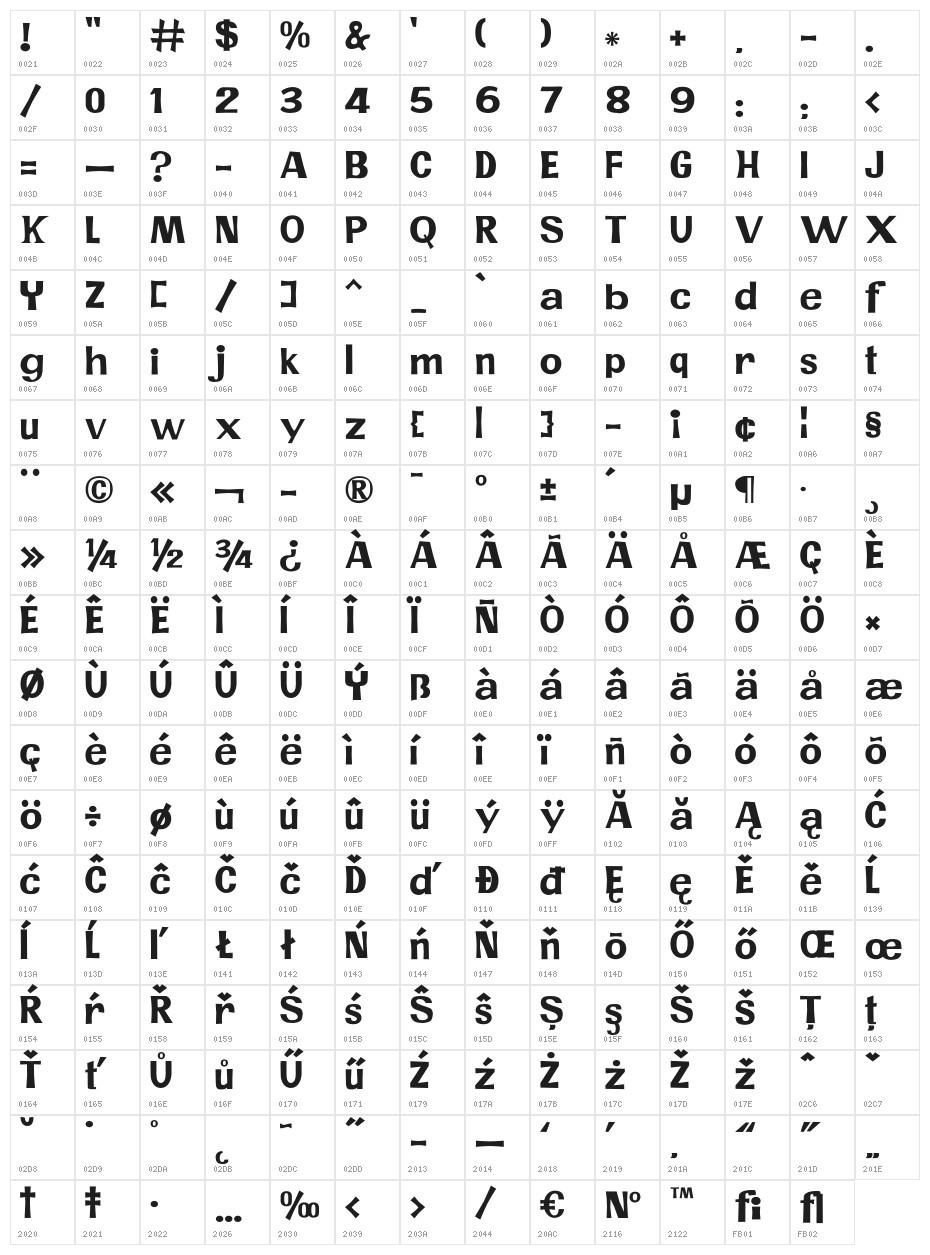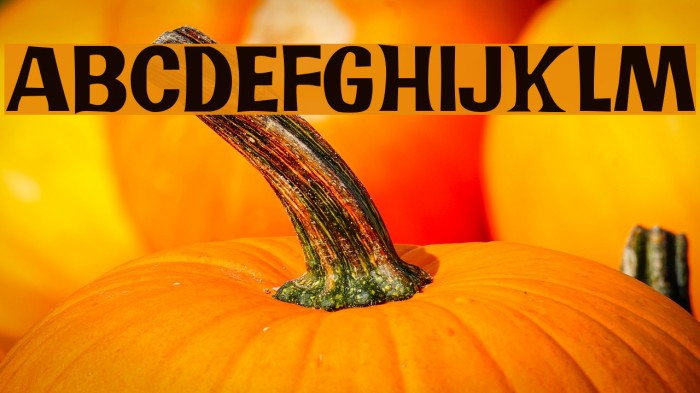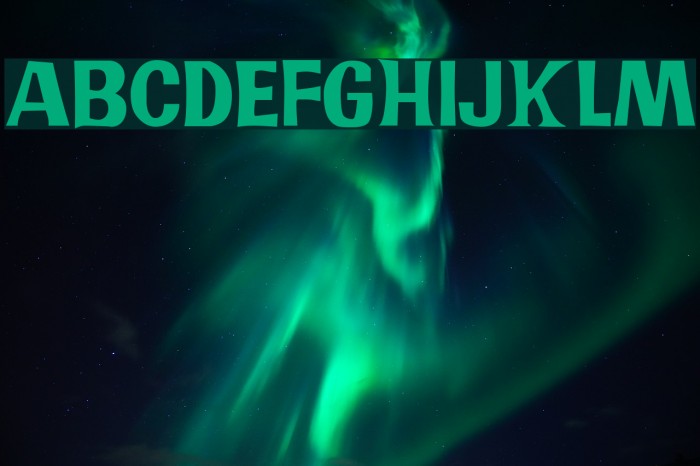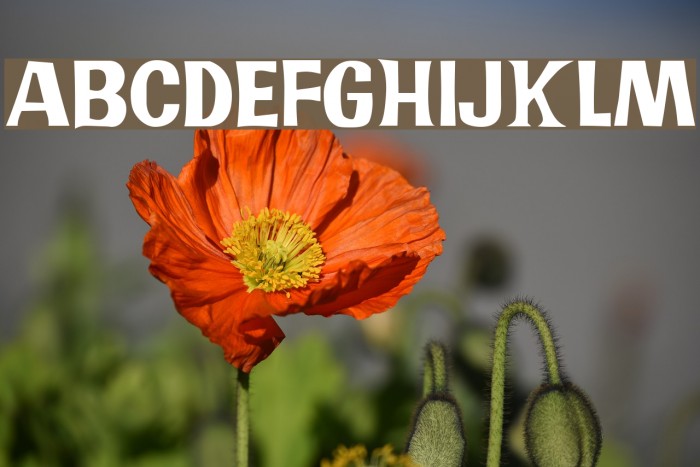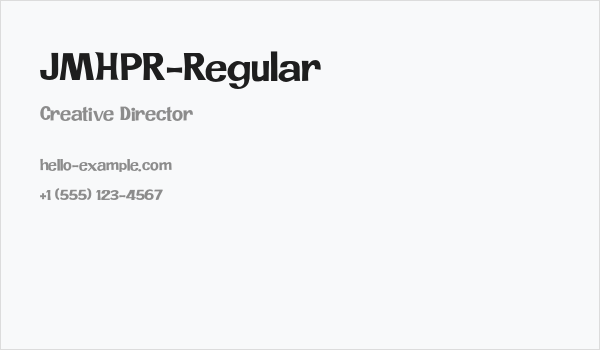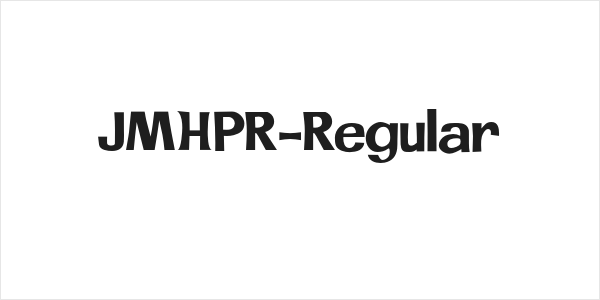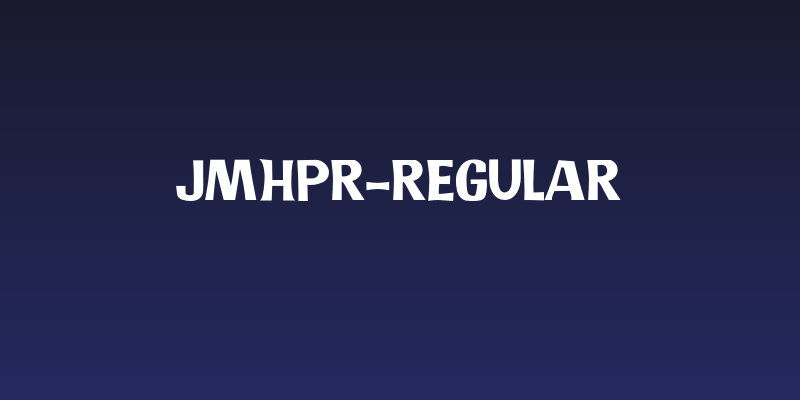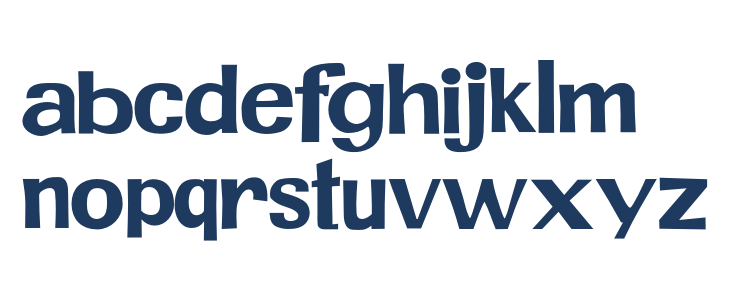
JMHPR-Regular Font
JMHPR-Regular Description
This font features a bold and dynamic style with a strong presence. The uppercase letters are slightly condensed with a unique flair, particularly noticeable in the curves and angles of letters like 'G', 'Q', and 'S'. The lowercase letters maintain a consistent weight, offering a harmonious flow that complements the uppercase. Numbers are robust and clear, making them highly legible. Special characters are designed with a playful touch, adding to the font's overall versatility. The font's boldness and distinct character make it suitable for impactful designs.
Proposed ProjectsIdeal for branding, headlines, posters, and any project requiring a strong visual impact.